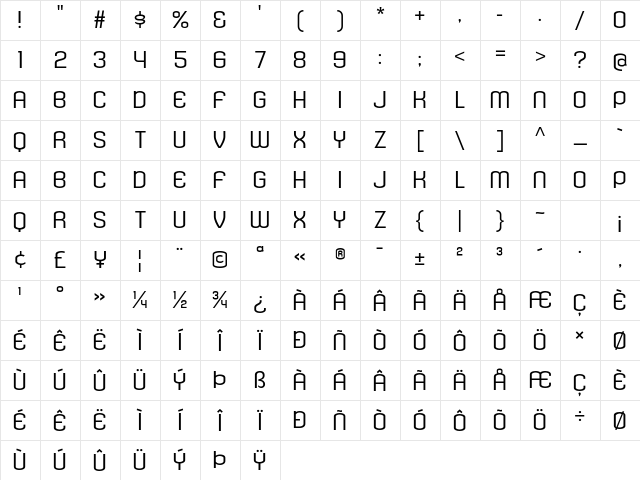
Kleptocracy Titling Expanded Light
Style: Expanded Light
Kleptocracy Titling Expanded Light Family
Kleptocracy Titling Expanded Light
Design Context for Kleptocracy Titling
Kleptocracy Titling is a composed and adaptable typeface that performs quietly and consistently across a wide range of design contexts. Its slender proportions lend an understated elegance to any composition.